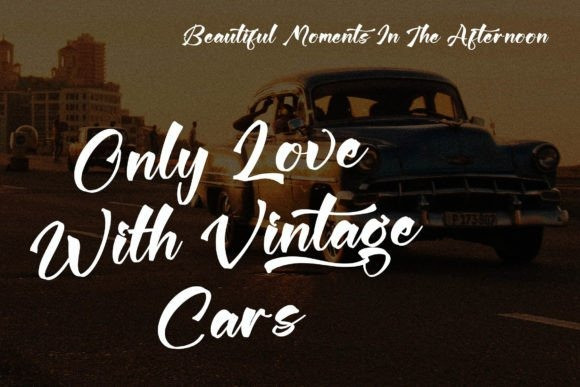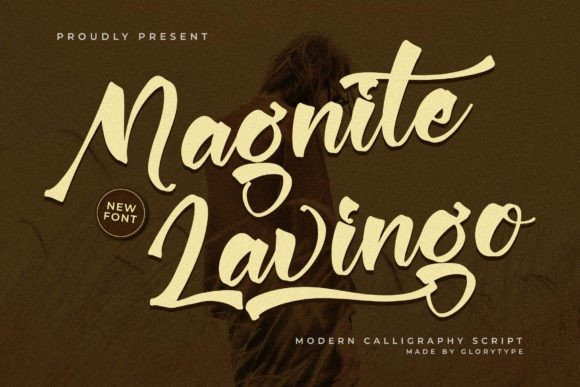
Magnite Lavingo Font
Magnite Lavingo – Modern Calligraphy Script, from Glorytype Studio, suitable for any projects such as: logos, branding projects, homeware designs, product packaging, mugs, quotes, posters, shopping bags, t-shirts, book covers, name card, invitation cards, greeting cards, label, photography, watermark, special events, and all your other lovely projects that need a beautiful script taste.